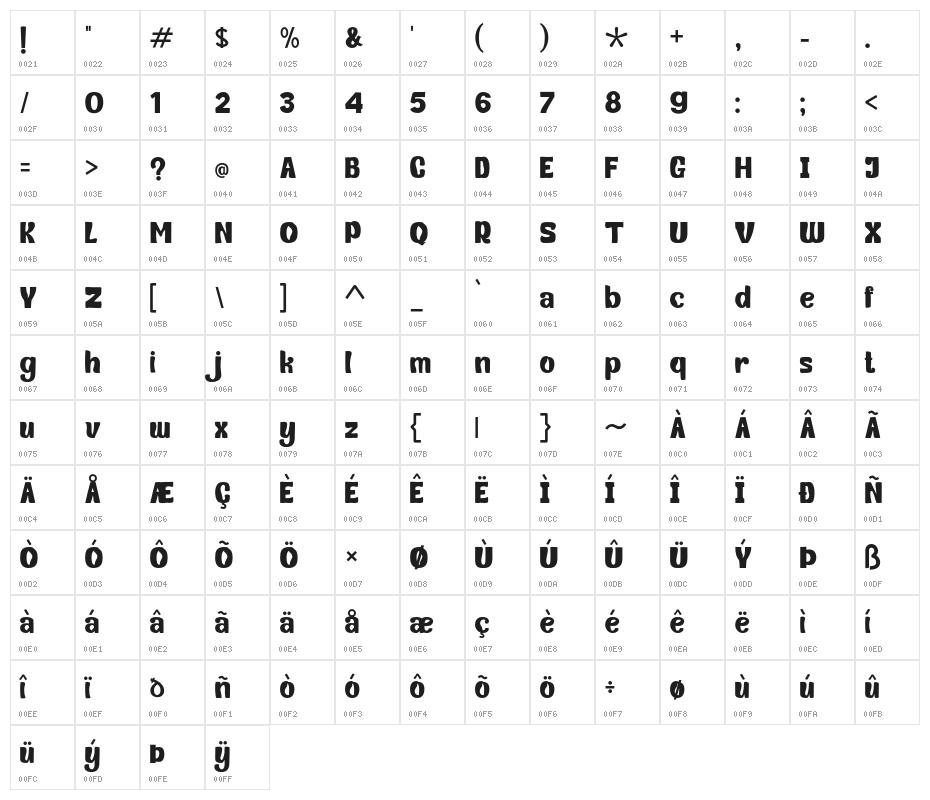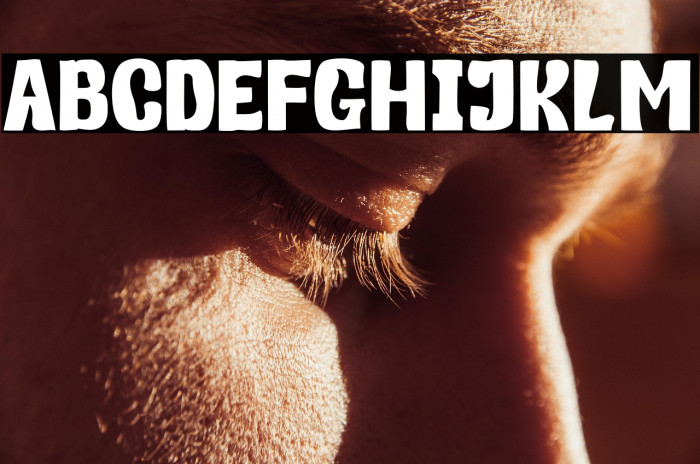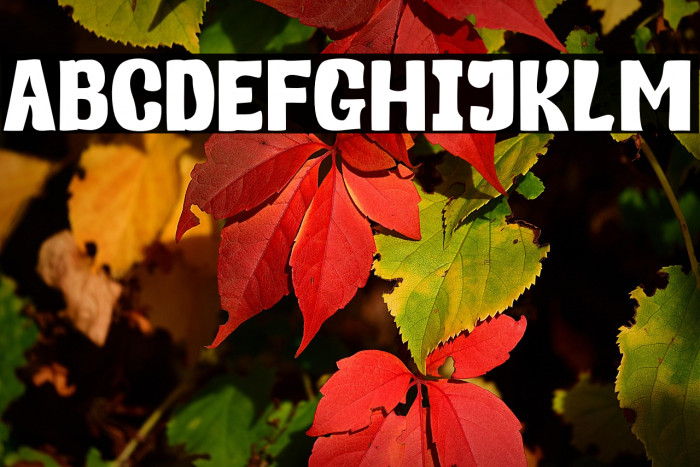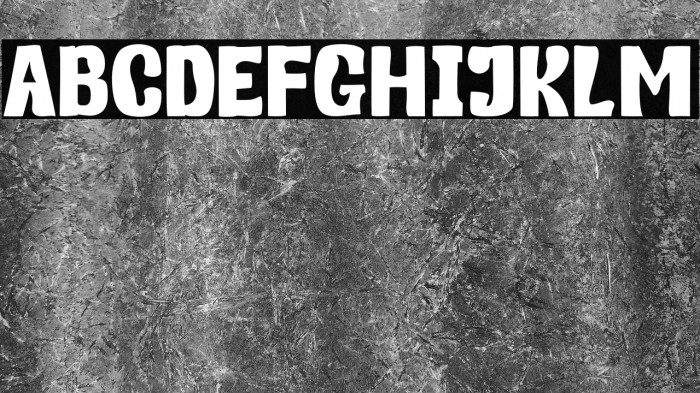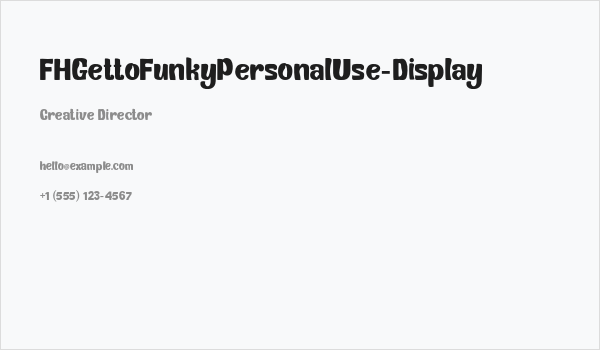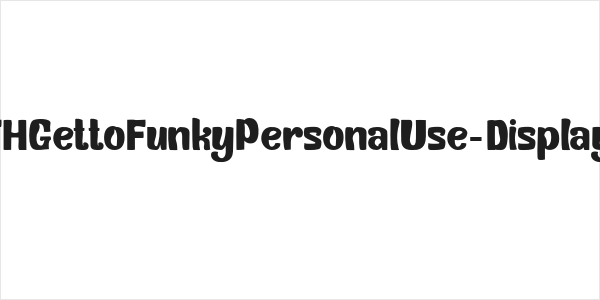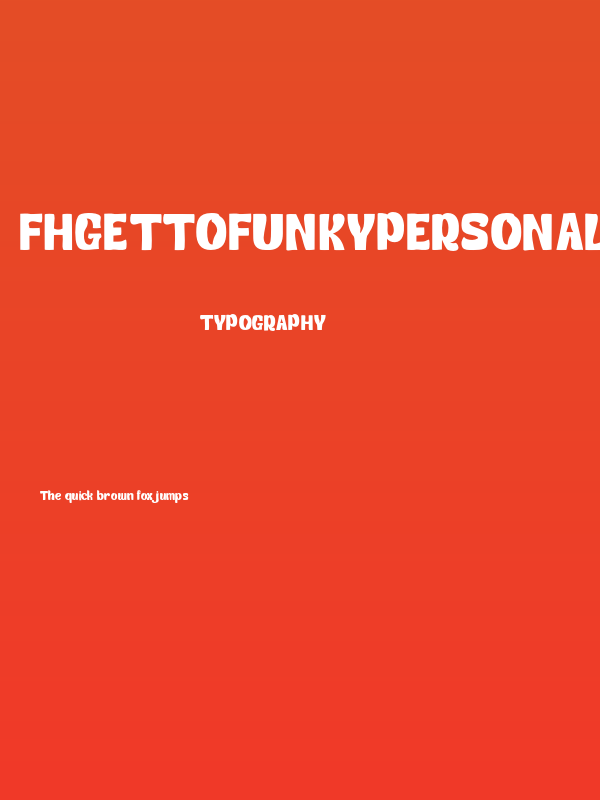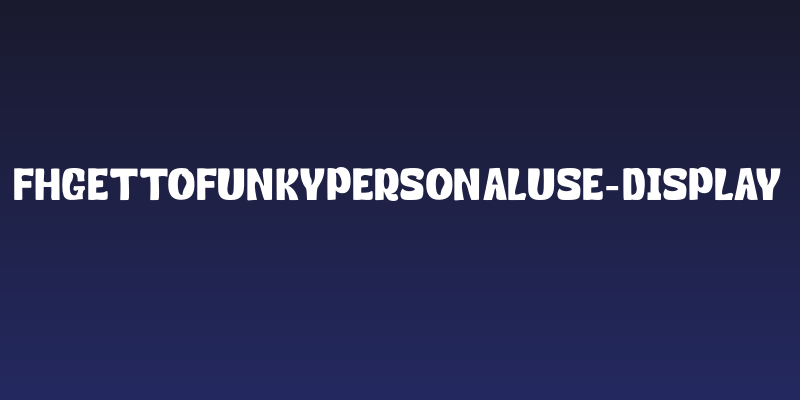
FHGettoFunkyPersonalUse-Display Font
FHGettoFunkyPersonalUse-Display Description
This font exudes a playful and bold character, with its thick strokes and slightly irregular shapes that give it a hand-drawn appearance. The uppercase letters are robust and commanding, while the lowercase letters maintain a consistent style that complements the uppercase. The numerals are equally bold, ensuring they stand out in any context. Special characters are designed with the same playful flair, making them suitable for creative and informal projects. The overall design is reminiscent of retro or vintage styles, yet it maintains a modern appeal through its unique and quirky forms.
| Overall Style | Vintage, Playful |
| Proposed Projects | Ideal for posters, children's books, playful branding, and any project requiring a fun and bold typeface. |